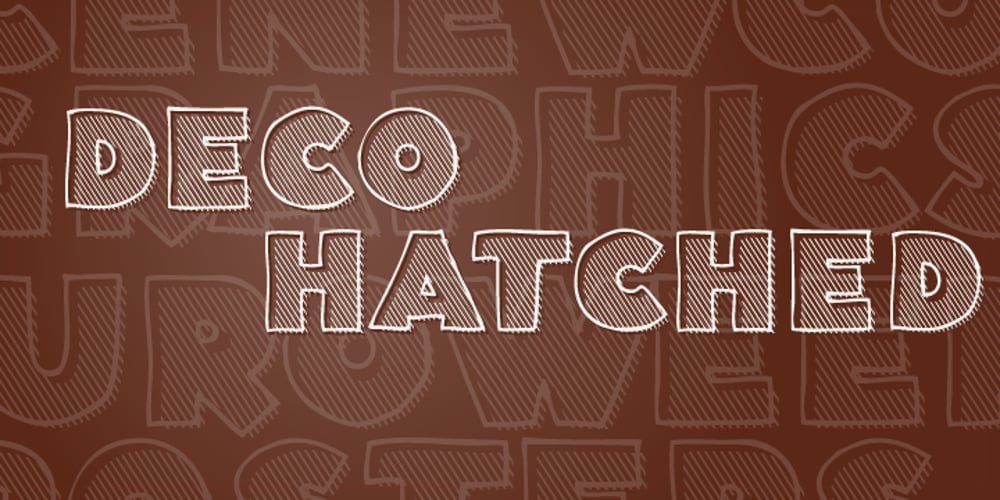
Deco Font Family was designed by Dathan Boardman and published by Open Window. Deco contains 2 styles and family package options. Deco is an Art Deco inspired chunky font. It has the irregular charm of a hand drawn font but the elegance of a classic Art Deco style font. It has enough humor and grace to be used in a wide range of applications. Its ideal use is as a display font.